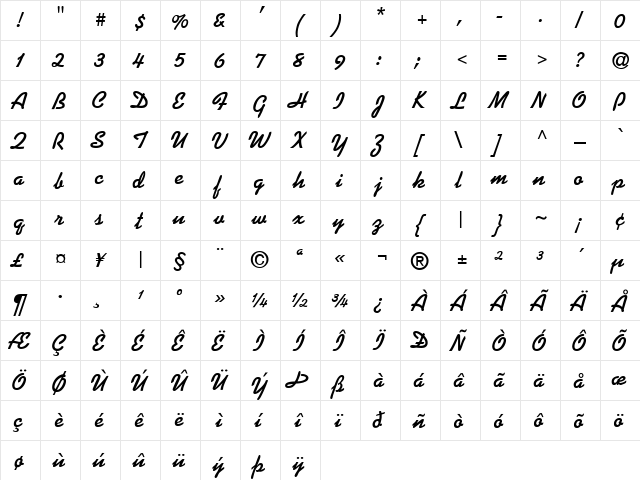
Koala Bold Font Preview
Koala Bold
Design Context for Koala Typeface
Koala is a composed and adaptable typeface that performs quietly and consistently across a wide range of design contexts. Its bold stroke weight gives it real presence on the page.